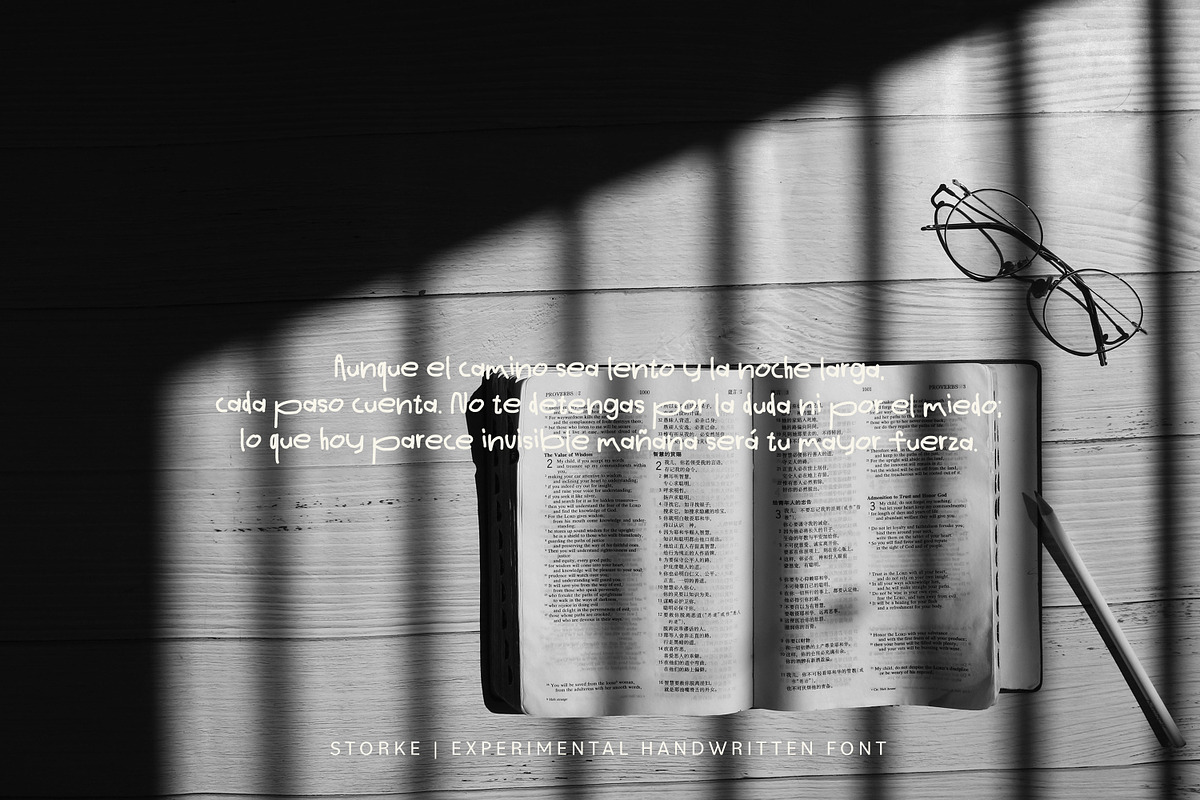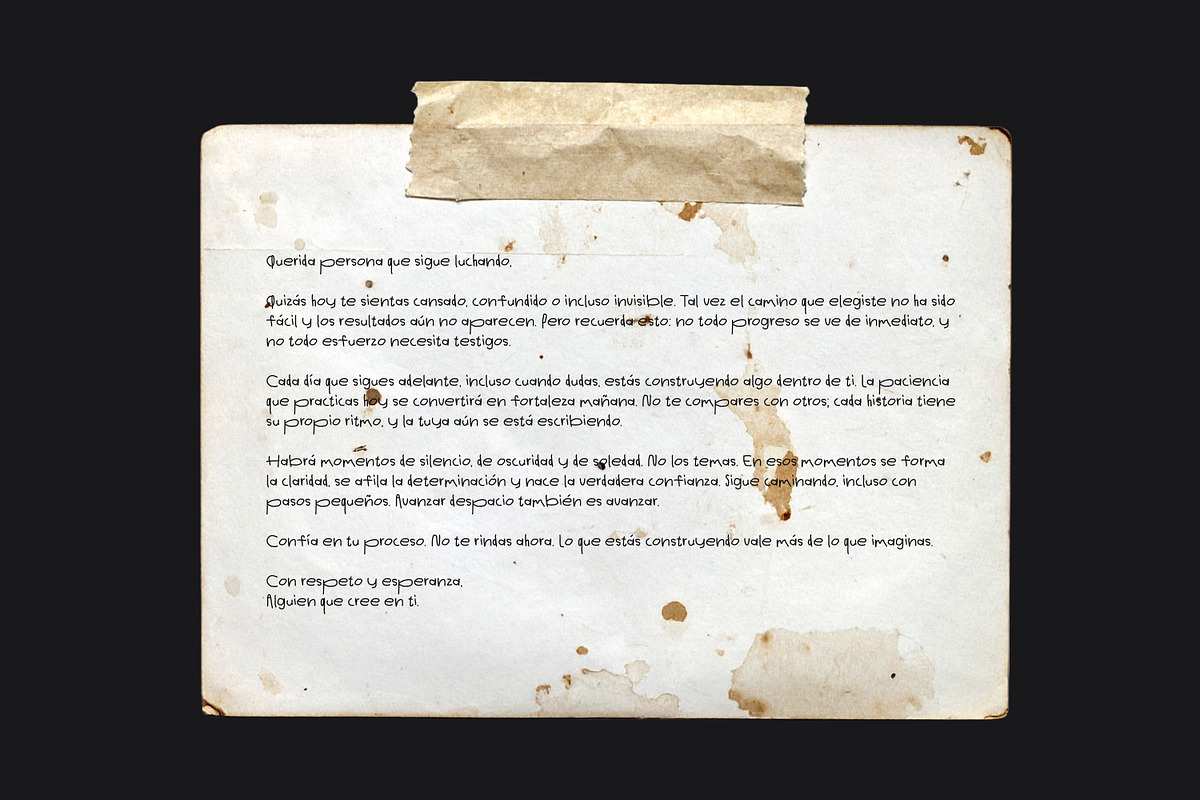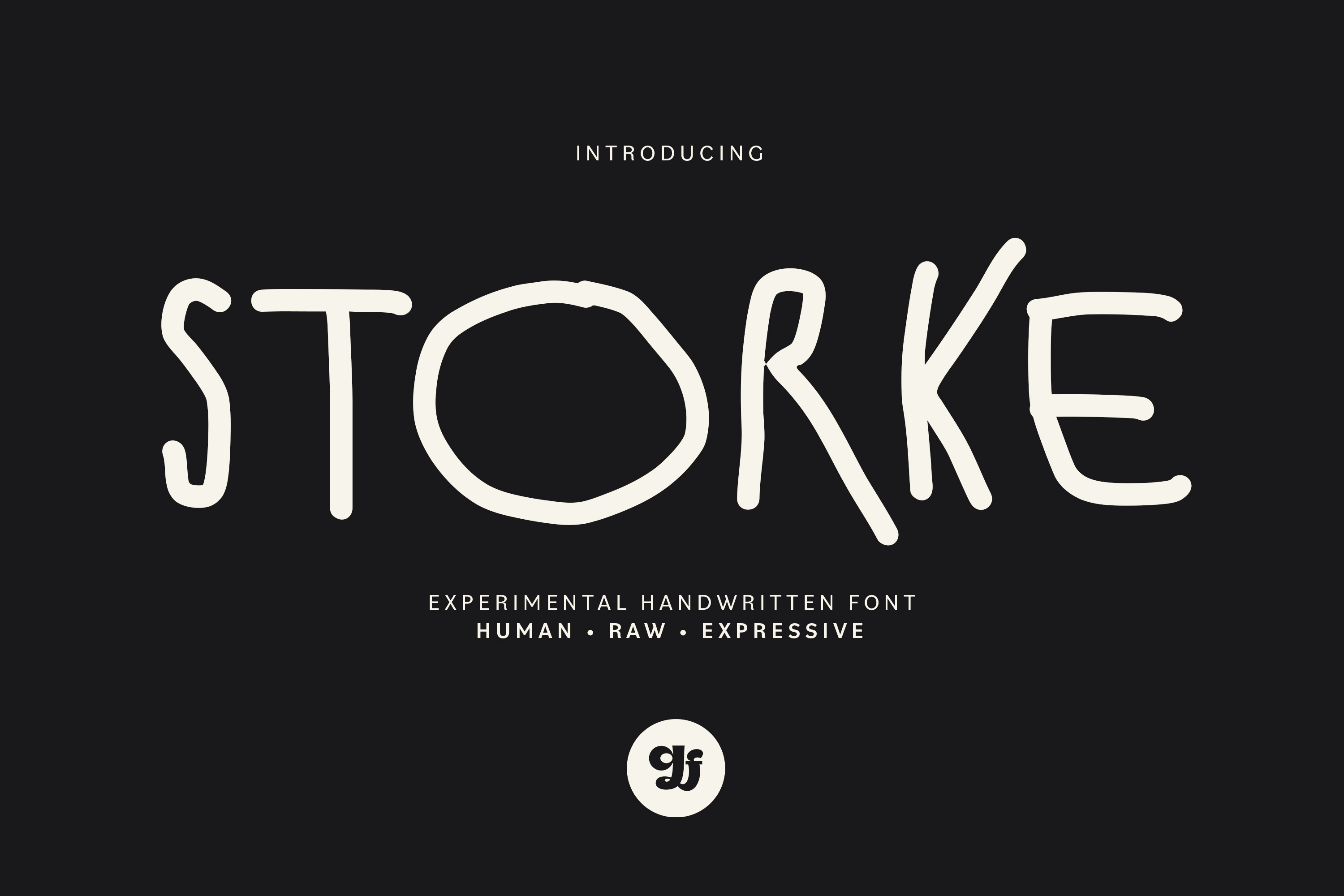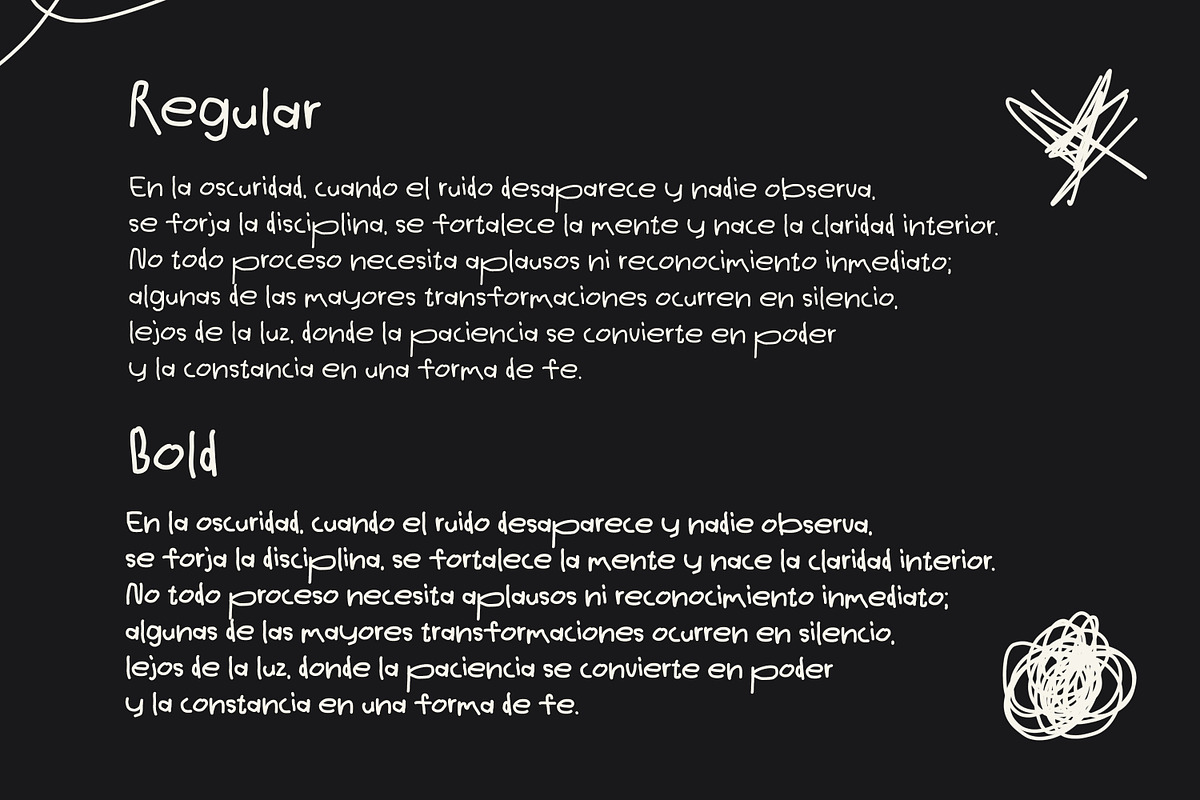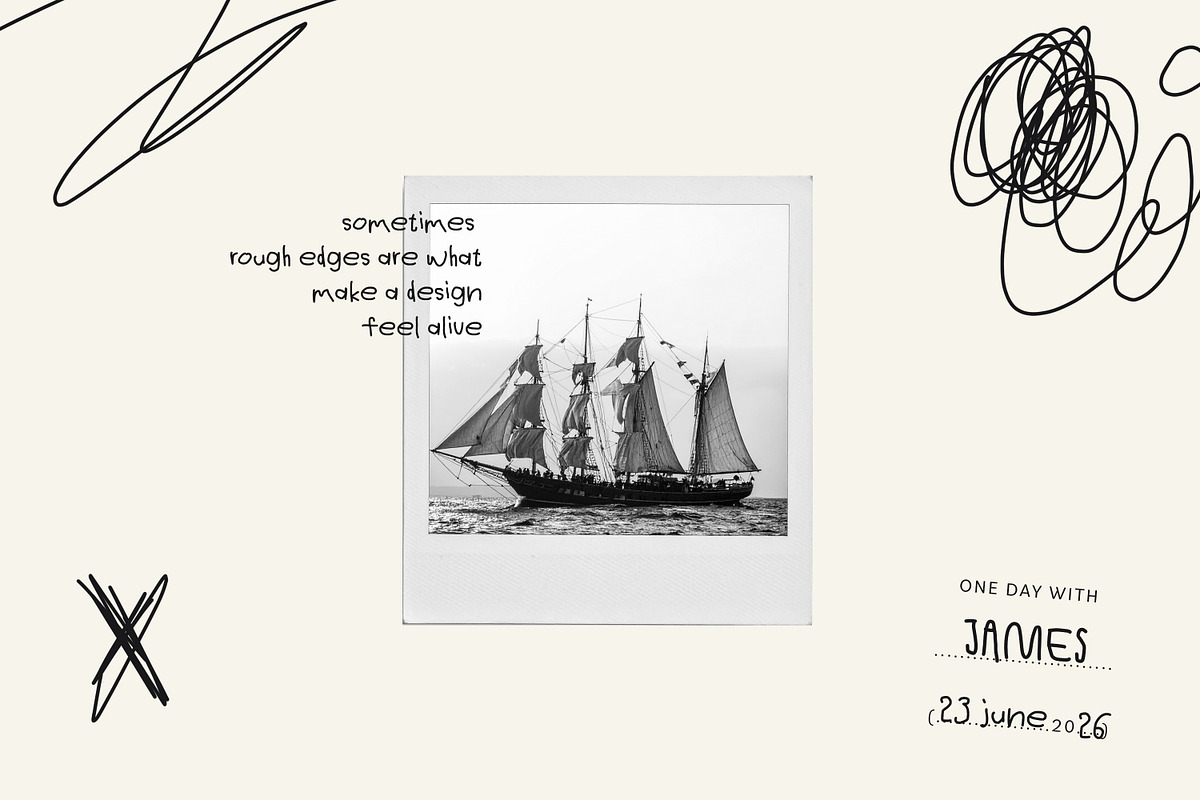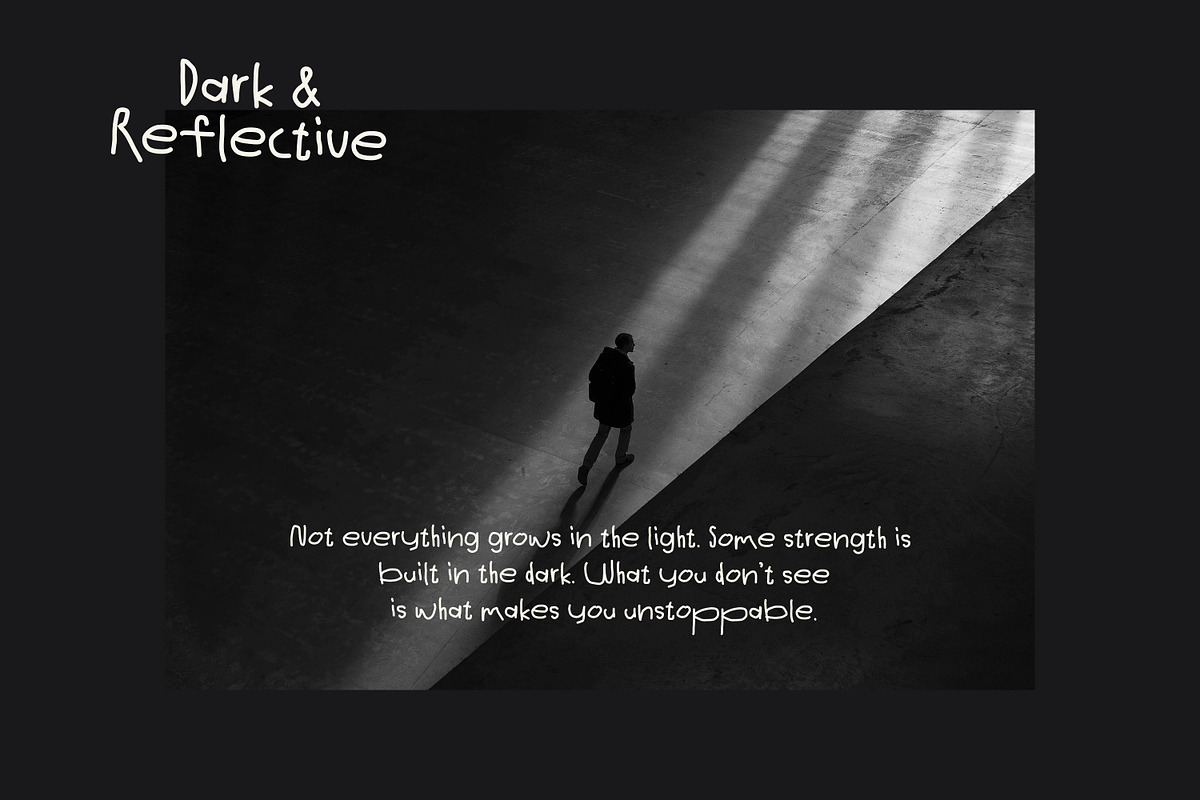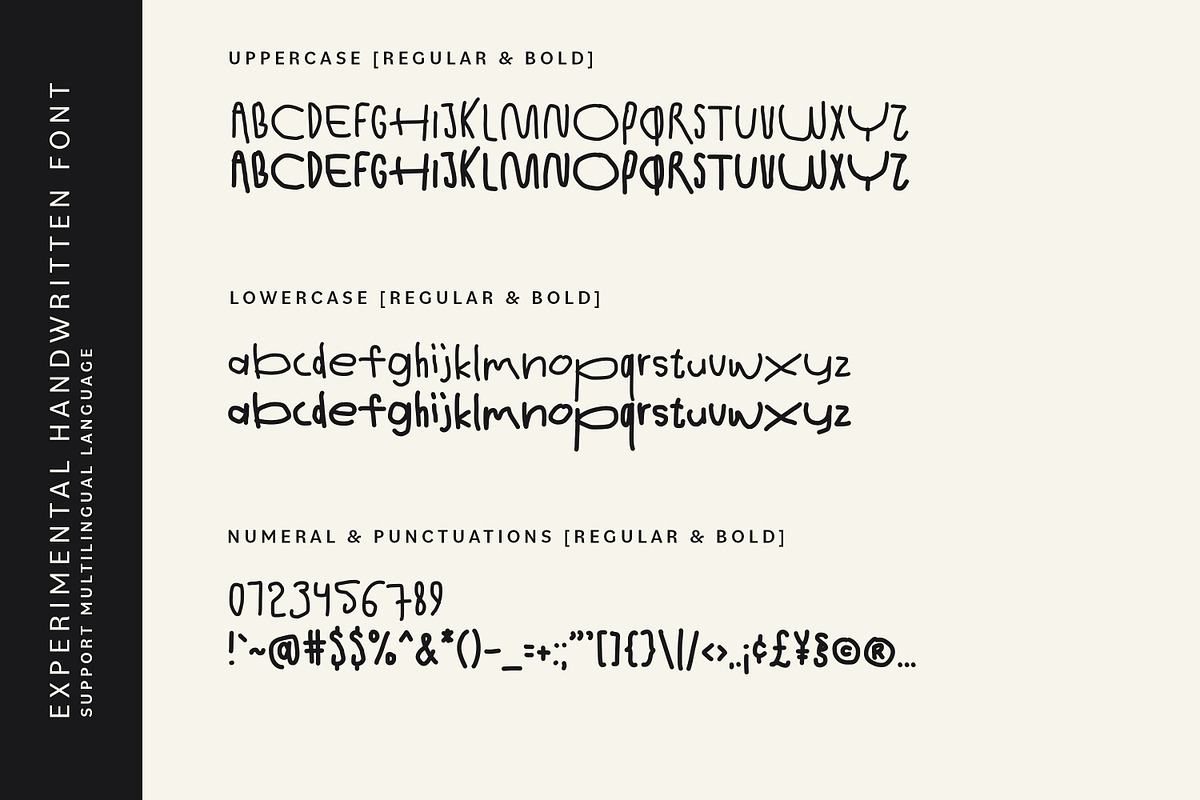
Storke - Experimental Font
Storke is an experimental handwriting font built from raw strokes and natural hand movement. It embraces imperfection, giving your designs a bold, expressive, and human feel.
With its organic lines and spontaneous character, STORKE is ideal for designers who want to break away from clean, polished typography and add personality to their work. This font works great for branding, posters, social media graphics, quotes, album covers, packaging, and motion design.
Whether you’re creating something artistic, edgy, or modern, STORKE helps your message feel more alive and authentic.
- Experimental handwriting style
- Raw, organic stroke shapes
- Unique and expressive letterforms
- Uppercase & lowercase characters
- Multilingual support (Latin-based)
- Branding & logo concepts
- Posters & editorial design
- Social media content
- Quotes & typography art
- Motion graphics & video titles
- Creative and experimental layouts